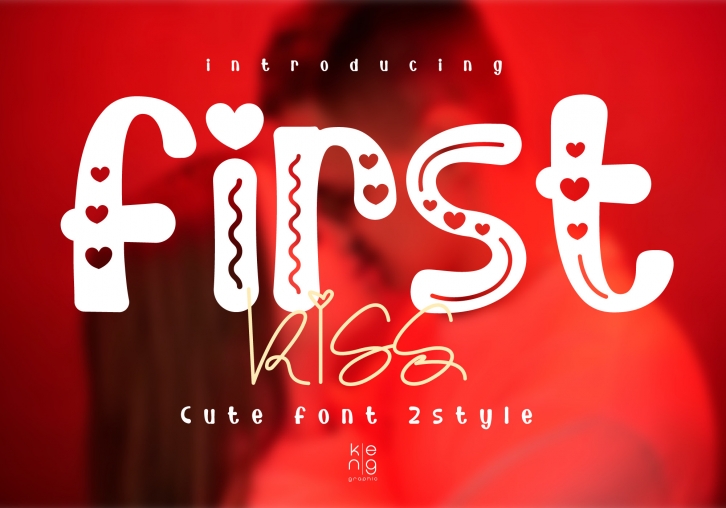
First Kiss FONT Download
First Kiss is a modern display and decorative duo font with a great punch. Everything written in this font will be instantly recognizable and will attract attention. It will work great for comic book style, online games, cards, love shirts, posters, movie titles, eye-catching social media posts, or anything that requires youthfulness and courage.